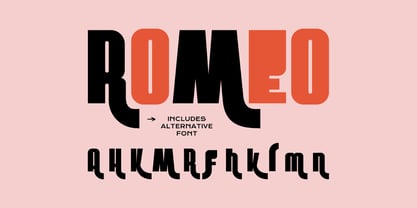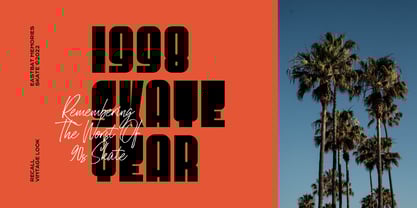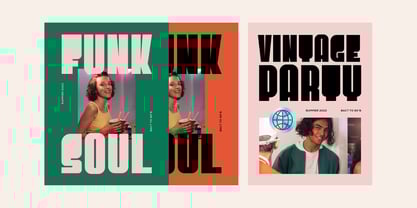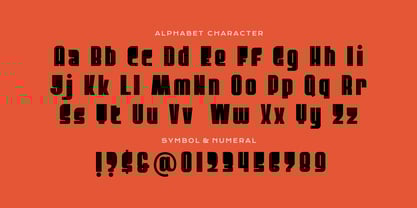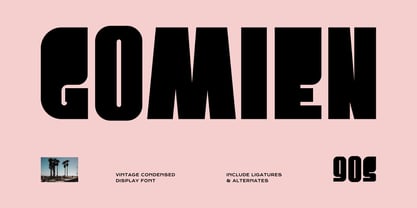
Gomien
by Imoodev
The Gomien Font Family was designed by Aulia Savira Putri and published by Imoodev. Gomien contains 1 styles.
Gomien is a vintage condensed display typeface with a strong 90s retro vibe. This font features thick, heavy strokes and unique, geometric letterforms that give it a distinct, eye-catching presence.
Its condensed shape makes it perfect for impactful headlines, posters, album covers, and branding that need a strong vintage or retro vibe. Its condensed and heavy style works great in fashion, music, and entertainment designs, especially those inspired by the 90s. It’s also ideal for eye-catching social media graphics, event flyers, and packaging that want to stand out with a nostalgic yet modern feel.
Designers: Aulia Savira Putri
Publisher: Imoodev
Foundry: Imoodev
Design Owner: Imoodev